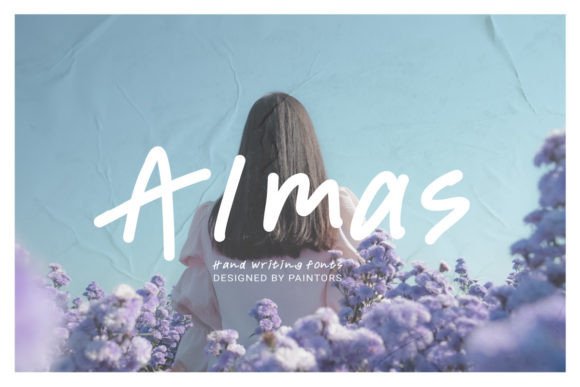
The Warmth of Almas Font: A Designer’s New Best Friend
I’ll never forget the time I was working on a project for a client’s wedding invitation. I had all the design elements in place – the beautiful floral patterns, the elegant color scheme, and the heartfelt message. But something was missing. The font I was using just didn’t feel right. It was too formal, too stiff, and it completely took away from the warm and intimate vibe I was going for. That’s when I stumbled upon Almas Font, and let me tell you, it was love at first sight! 💕
A Sweet and Casual Handwritten Font
Almas Font is a sweet and casual handwritten font that exudes warmth and approachability. Its gentle curves and soft lines create a welcoming tone, making it perfect for heartfelt messages, invitations, and personal touches. Whether you’re a designer, crafter, or creative hobbyist, Almas Font is sure to become your new best friend.
• ✨ The warm and inviting tone it brings to any design
• ✅ The gentle curves and soft lines that make it perfect for reading
• 💕 The way it makes you feel like you’re reading a handwritten letter from a friend
• 🎉 The versatility – it can be used for everything from wedding invitations to social media graphics
While Almas Font is an amazing font, there are a few things to keep in mind. 🤔
• ⚠️ It may not be the best choice for very formal or corporate designs
• ⚠️ Some of the letters may be a bit too condensed for certain design applications
A Practical Guide to Using Almas Font
The Designer Inspiration Behind Almas Font
Almas Font was designed with the intention of creating a warm and inviting font that would make readers feel like they’re reading a handwritten letter from a friend. The designer, who wishes to remain anonymous, was inspired by the beauty of handwritten letters and the way they can bring people together. With Almas Font, you can bring that same warmth and personality to your designs.
Q: What is Almas Font?
A: Almas Font is a sweet and casual handwritten font that exudes warmth and approachability.
Q: What can I use Almas Font for?
A: You can use Almas Font for a variety of design projects, including wedding invitations, social media graphics, and personal messages.
Q: Is Almas Font easy to read?
A: Yes, Almas Font is very easy to read, thanks to its gentle curves and soft lines.